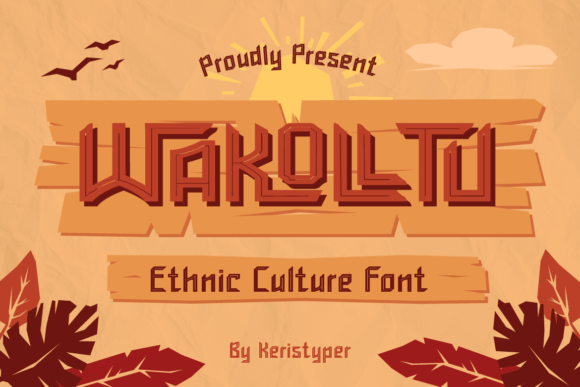
Welcome to the realm of captivating aesthetics, where Wakolltu, a stunning display font family, beckons you to unleash your creativity. Step into a world of visual enchantment as Wakolltu carries your projects to unparalleled heights of originality and impact. With a touch of ethnic charm and a boundless spirit, this font family is your gateway to extraordinary design possibilities.
Immerse yourself in the allure of Wakolltu, a font crafted to leave a lasting impression. Its bold personality and meticulously crafted glyphs command attention, demanding recognition in the digital realm. As a pillar of digital signage, Wakolltu captivates audiences with its vibrant energy, ensuring your messages shine with unparalleled clarity and impact.
Unleash your design prowess with Wakolltu, a font that adapts seamlessly to your creative vision. From captivating logos that command attention to social media posts that exude personality, Wakolltu effortlessly elevates your creations, transforming them into masterpieces of visual storytelling. Movie titles and book covers adorned with Wakolltu captivate readers, drawing them into worlds of imagination and intrigue.
With Wakolltu, you unlock a symphony of visual harmony, weaving together elegance and boldness in perfect balance. Its versatility extends across diverse projects, from branding and marketing materials to website design and digital art. Experience the transformative power of Wakolltu as it breathes life into your designs, igniting a spark of visual brilliance.
Enrich your font collection with Wakolltu, a treasure that ignites creativity and propels your designs to new heights. Embrace the ethnic allure that sets it apart, a testament to the rich tapestry of cultures woven into its very essence.